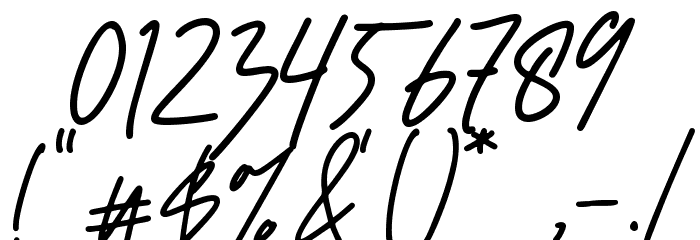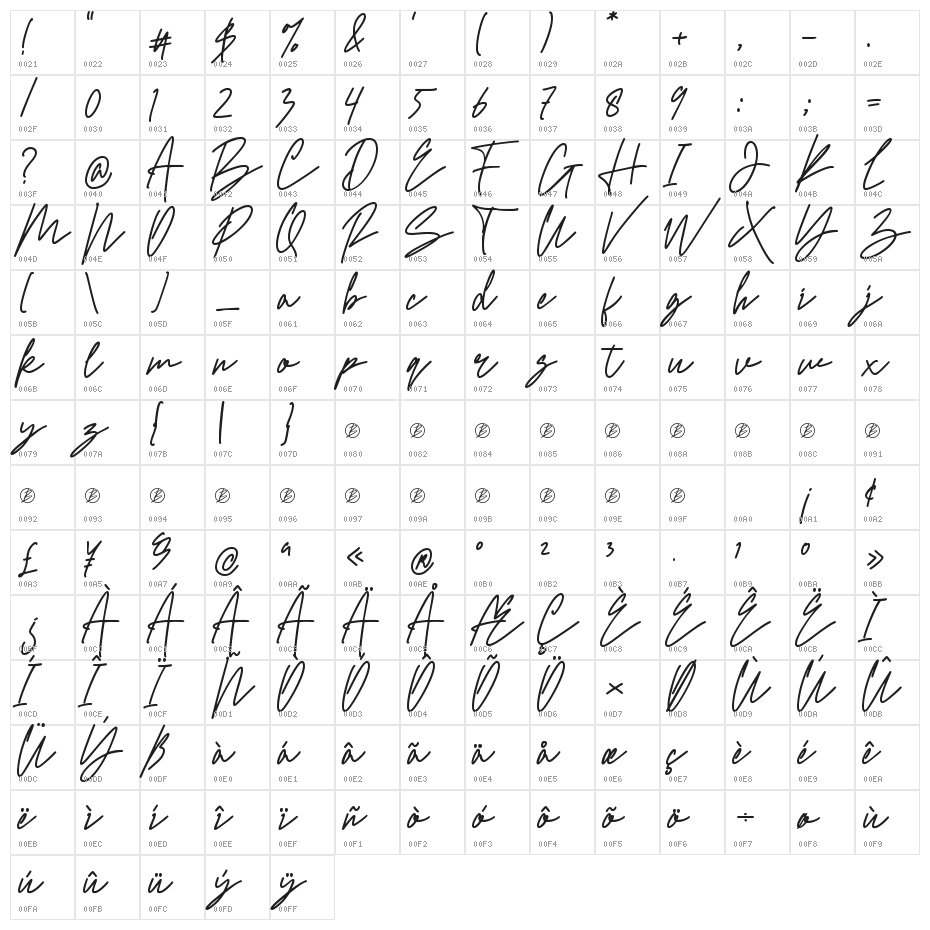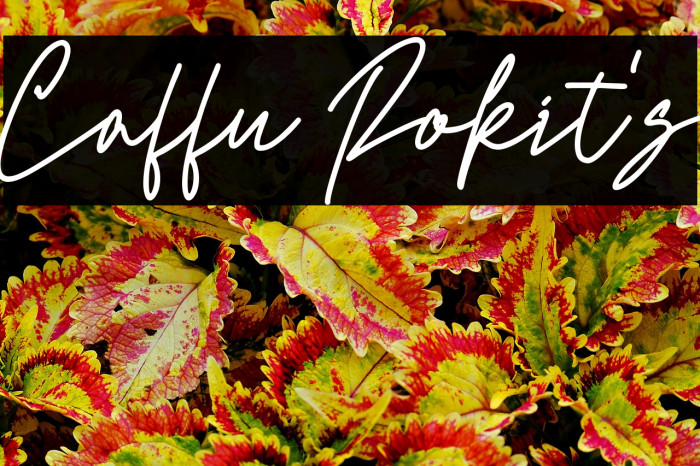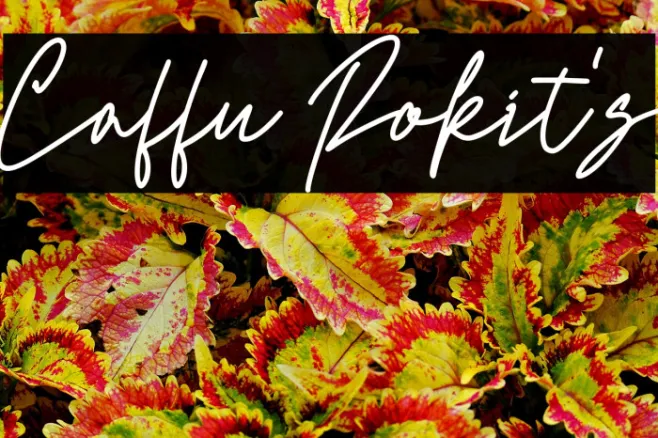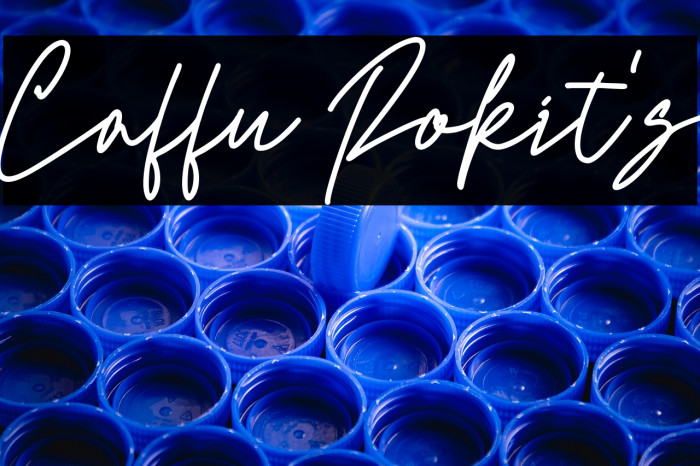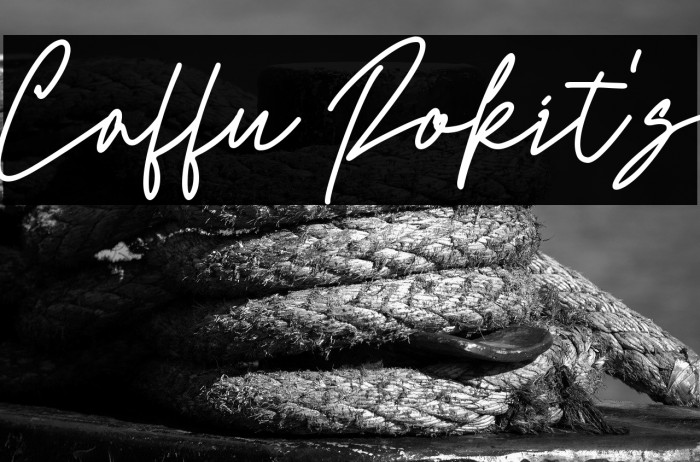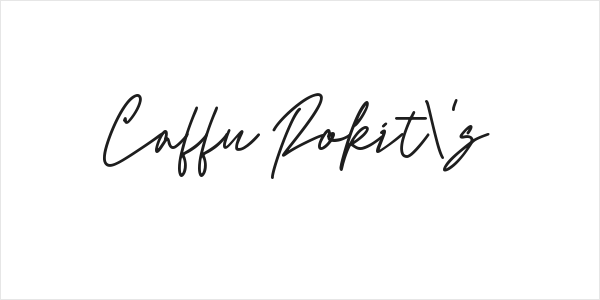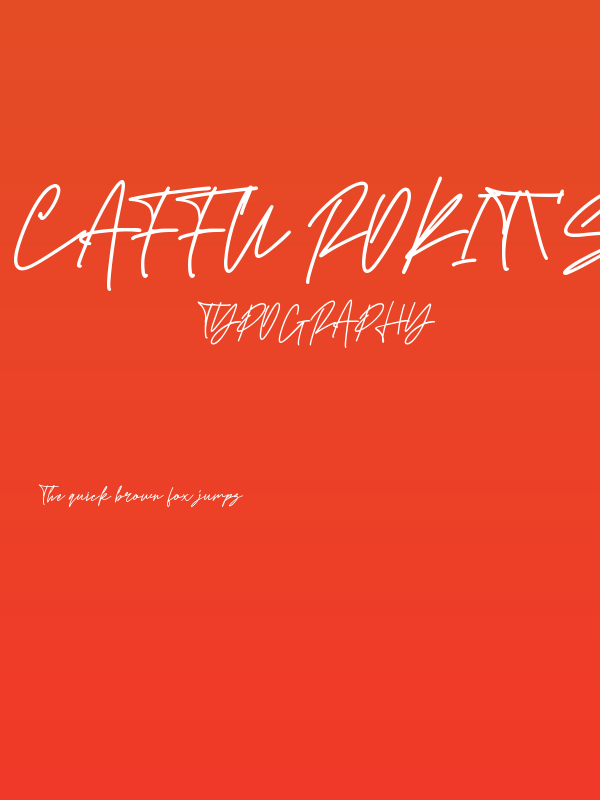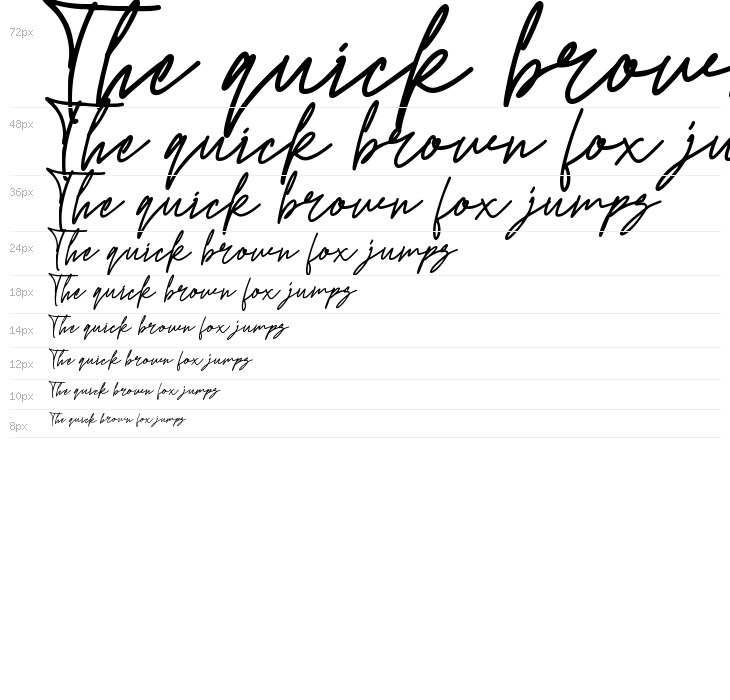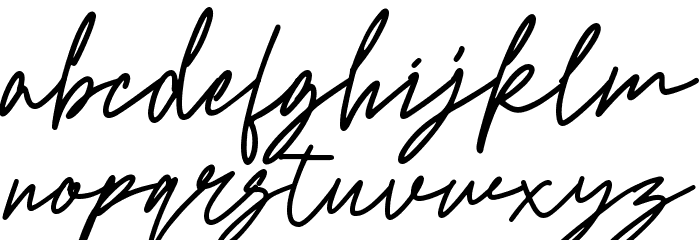
Caffu Rokit's Font
Caffu Rokit's Description
This font exudes a dynamic and expressive handwritten style, characterized by its fluid and cursive strokes. The letters are connected, creating a seamless flow that mimics natural handwriting. The uppercase letters maintain a consistent height, while the lowercase letters feature elegant loops and curves. The numerals and special characters are crafted with the same attention to detail, ensuring a cohesive appearance across all glyphs. This font's lively and personal touch makes it ideal for projects that require a humanistic and approachable feel.